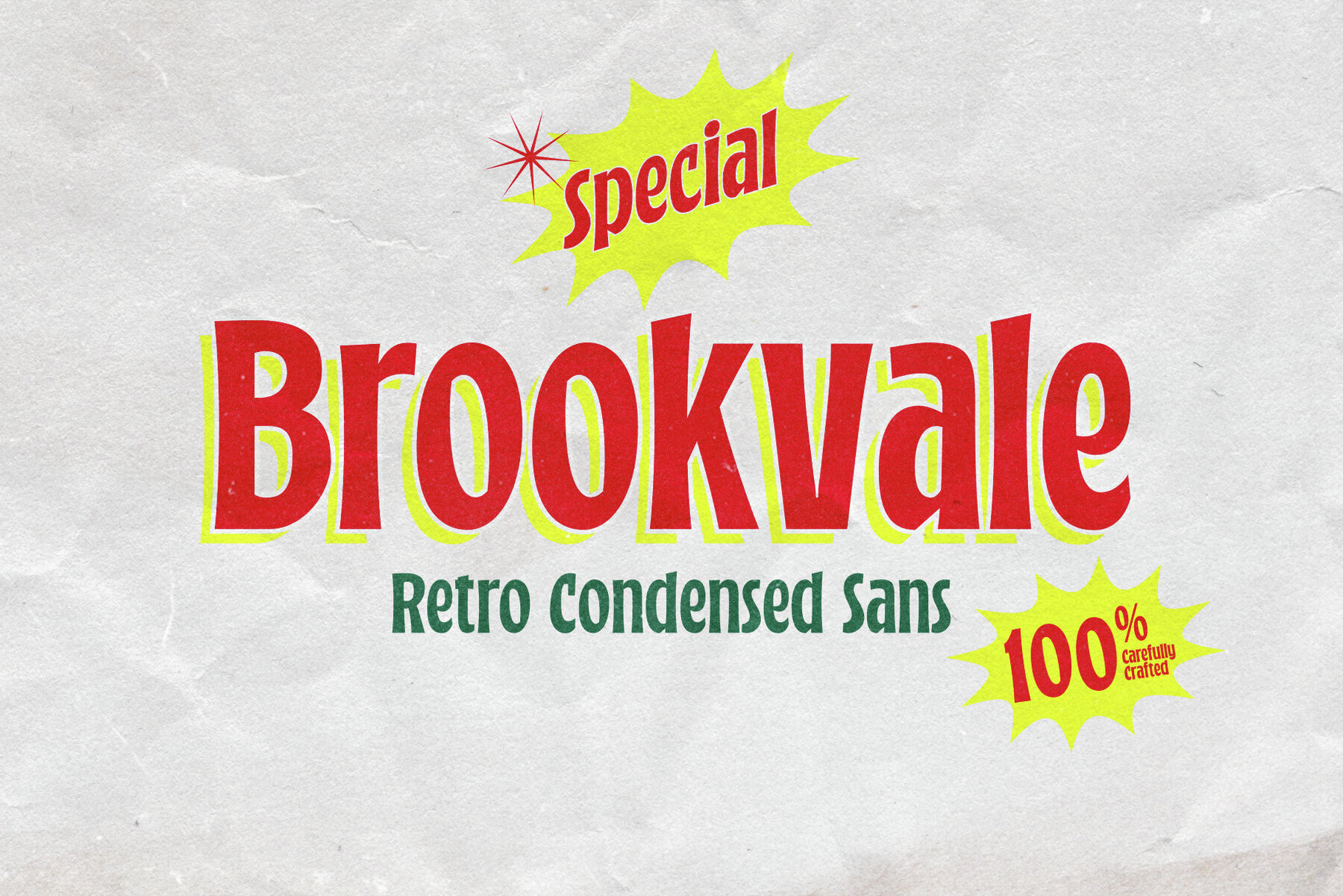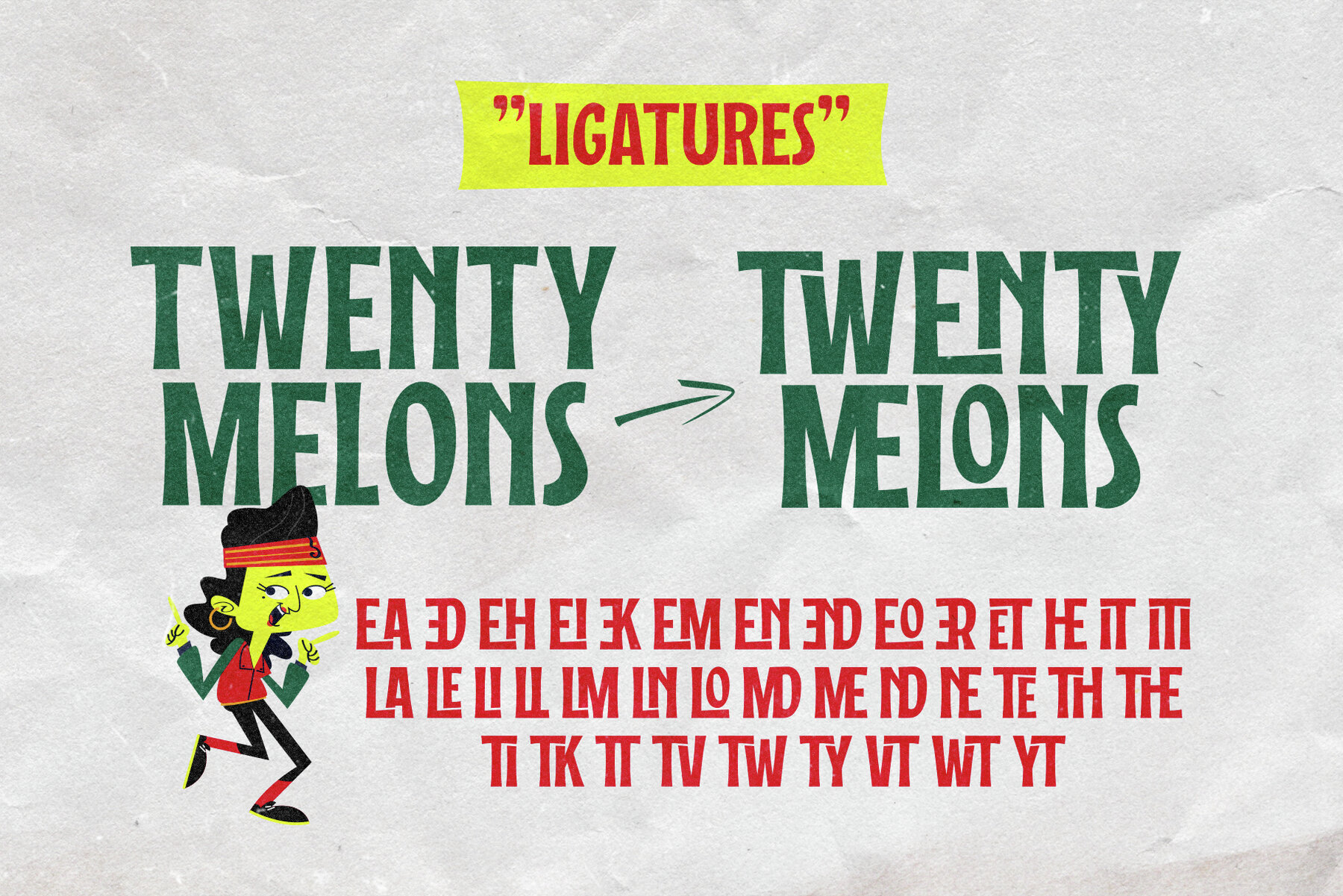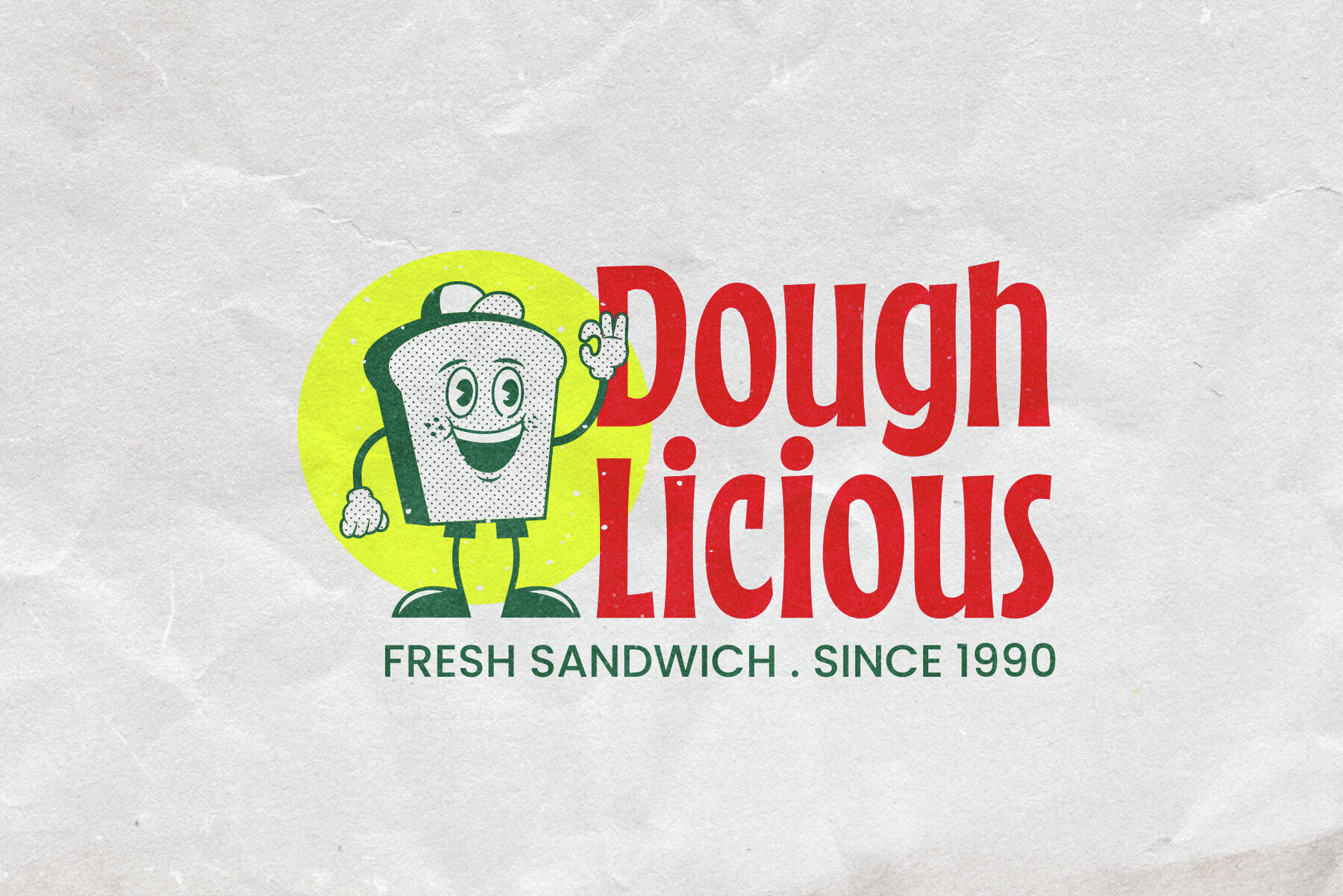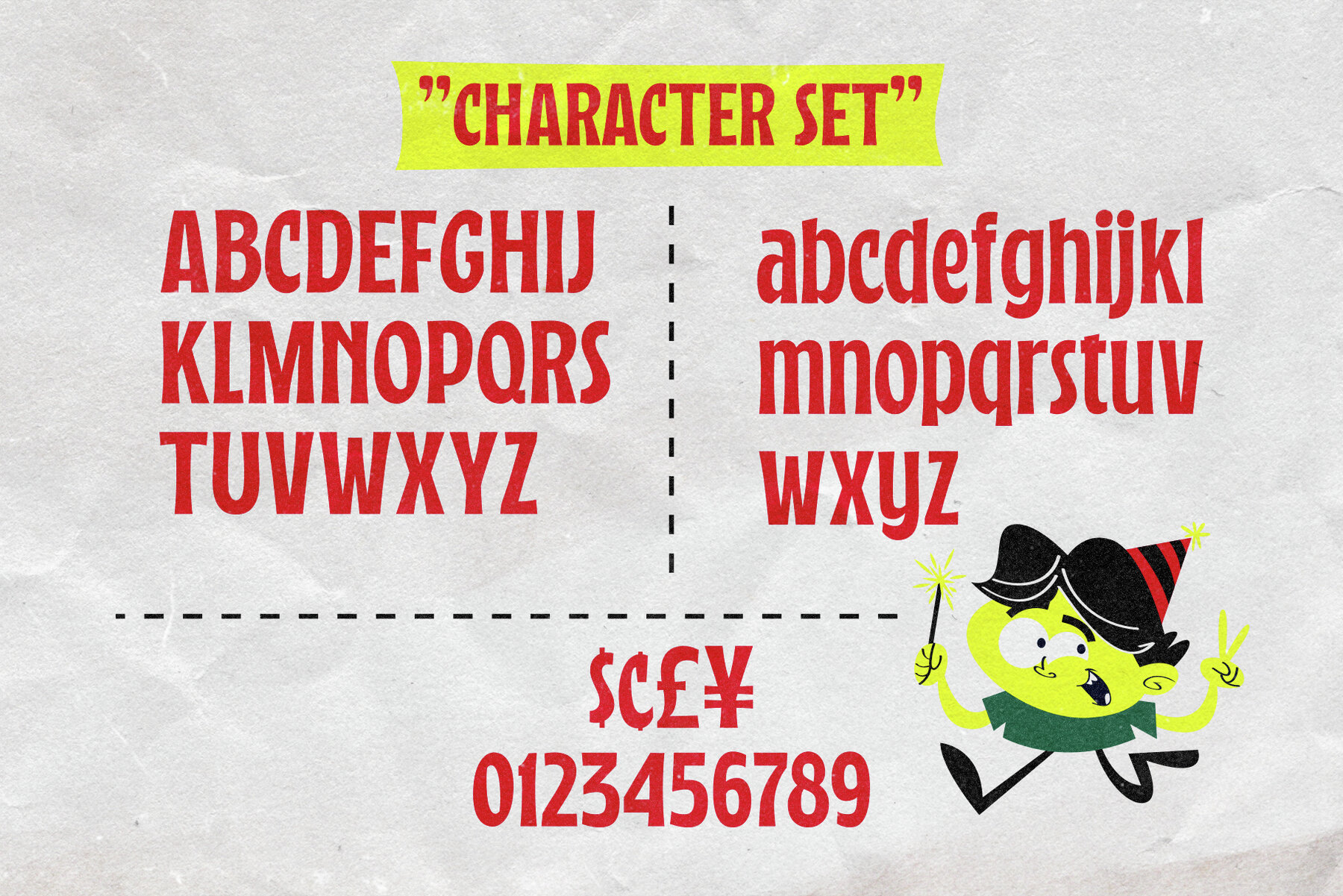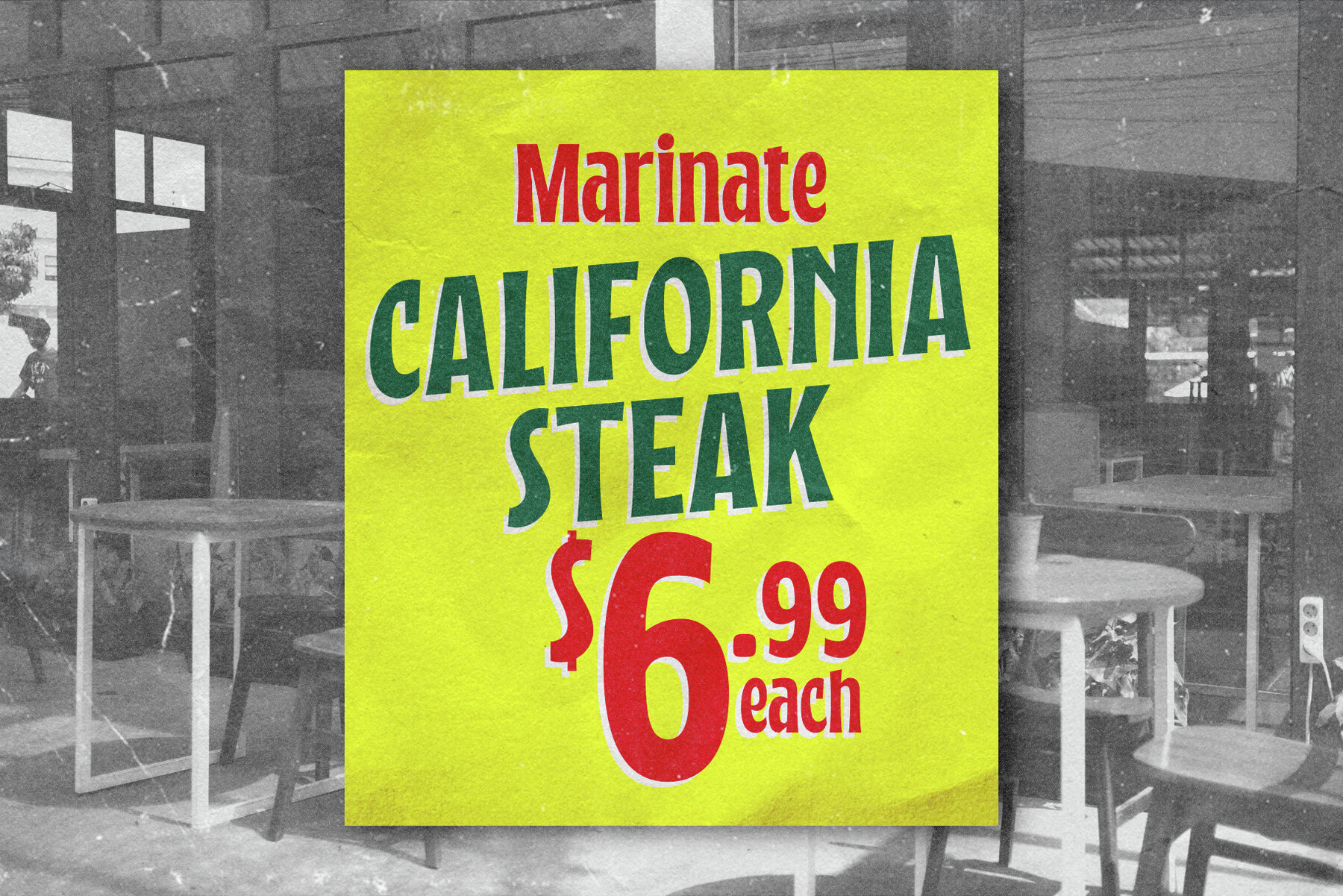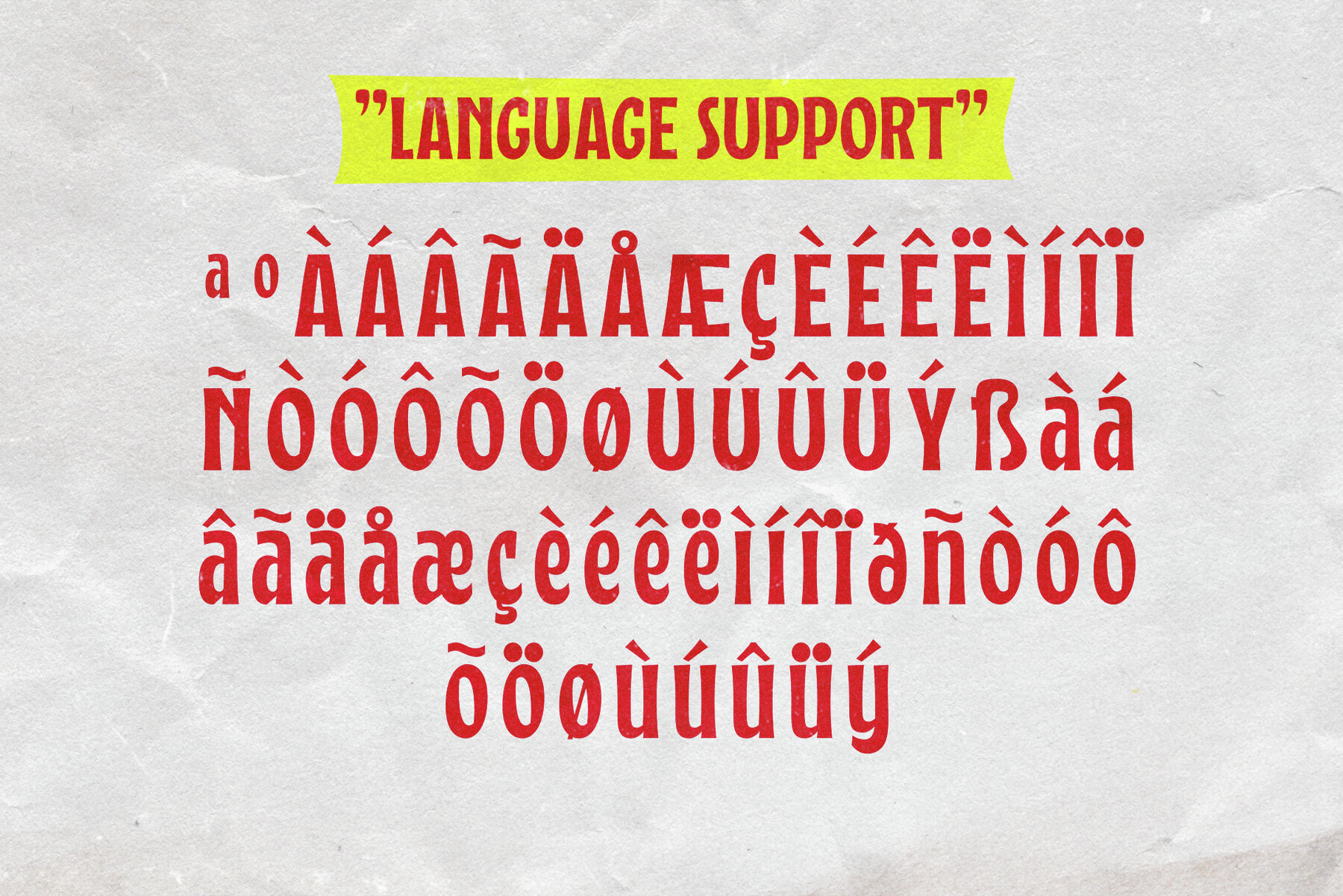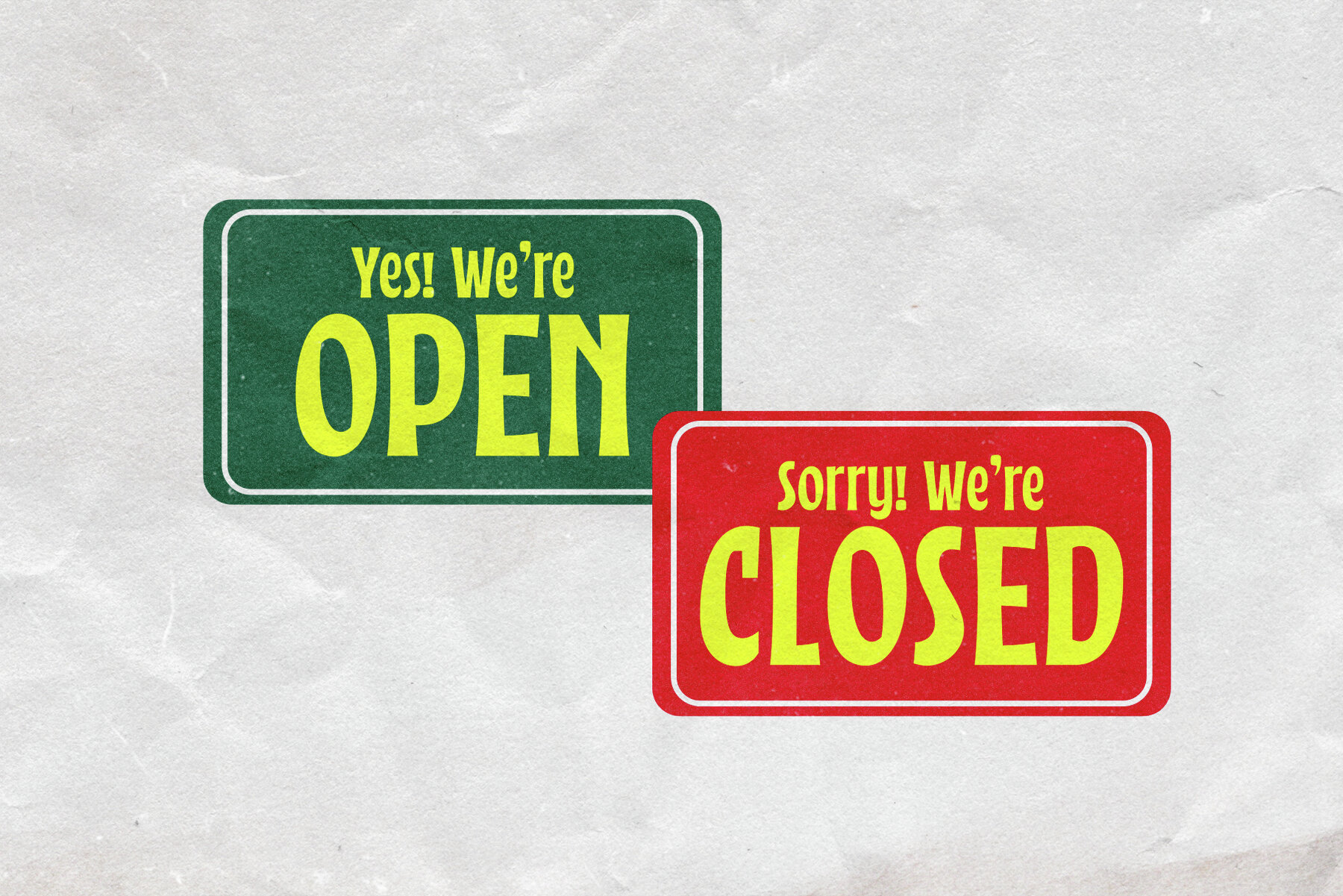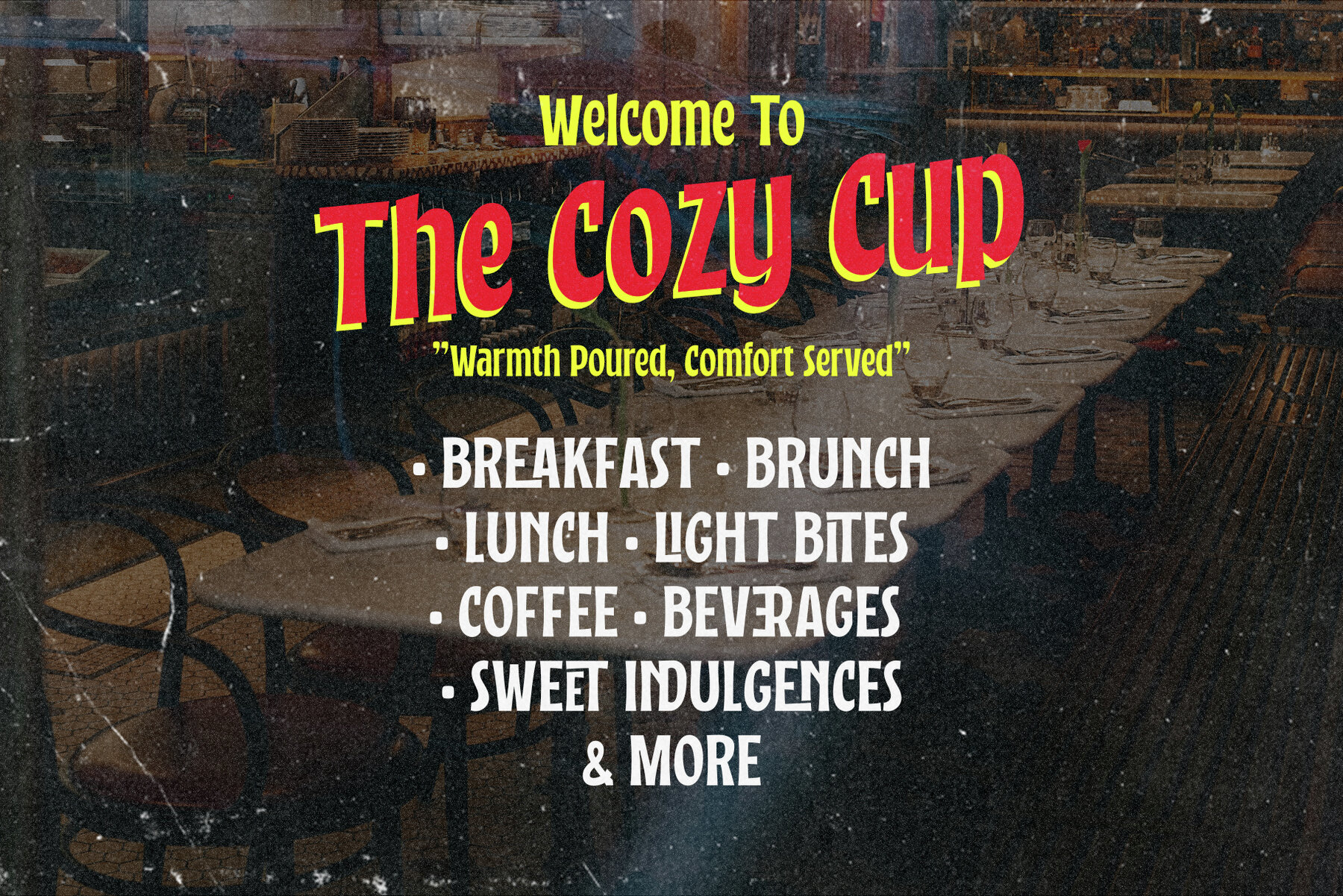
Brookvale Font
Brookvale Regular
Brookvale - Retro Condensed Font is a nostalgic typeface that channels the essence of the past with a contemporary twist. It's condensed letterforms and retro flair evoke a sense of vintage charm, making it an ideal choice for projects seeking a dash of retro coolness. Perfect for posters, branding, and designs that celebrate the enduring appeal of yesteryears.